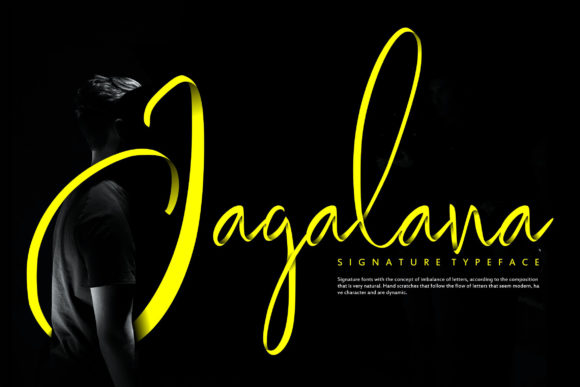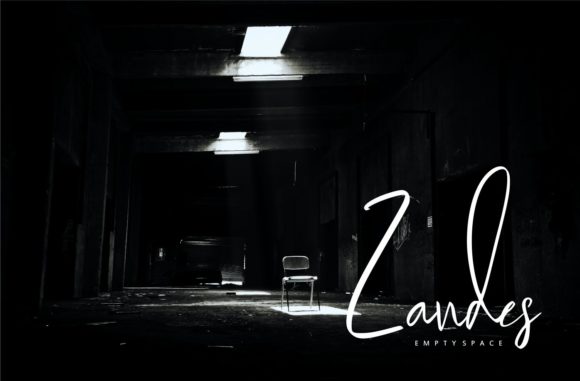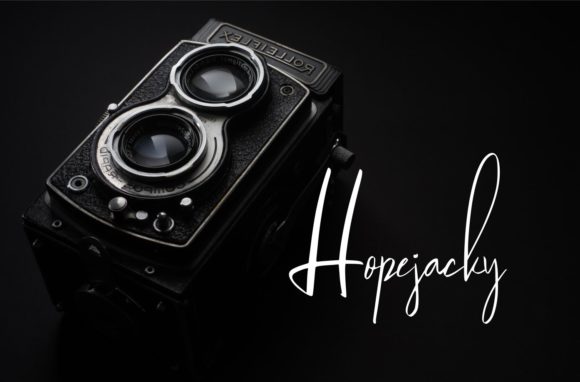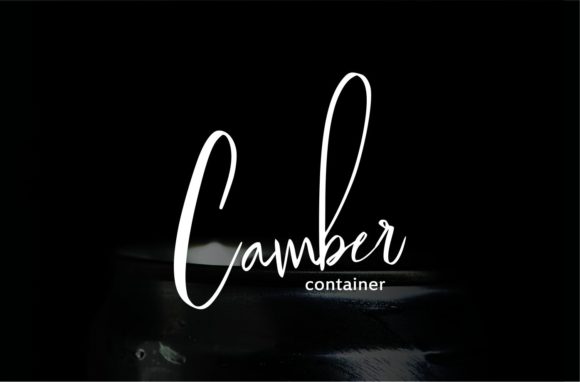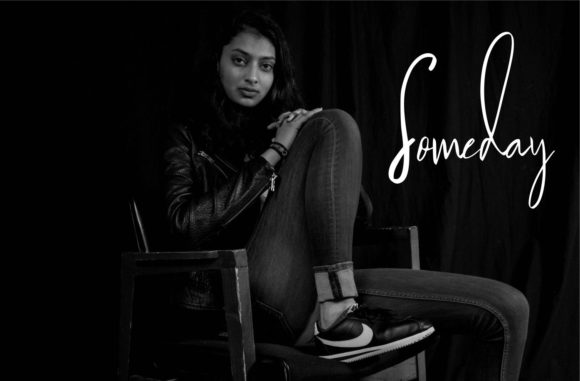
HomeScript FontsJagalana Font Script Fonts Jagalana Font FacebookXPinterestWhatsApp Jagalana Font Poster 2 Jagalana Font Poster 3 Jagalana Font Poster 4 Jagalana Font Poster 5 About Jagalana Font Jagalana is the perfect font to add an authentic and sophisticated spark to your next design project. DOWNLOAD ON CREATIVE FABRICAThis font is sold and delivered by Creative Fabrica. Font Canyon may earn a commission if you buy through this link. People also explored Higher Dreams Font Shelby Script Font Sweet Pineapple Font Somebody Font Yosephine Script Font Qayla Font Scream Ghost Font Finis Text Soft Font Oh Little Star Font 272 0 TagsJagalana Font Previous articleBigbang FontNext articleBalistik Font LEAVE A REPLY Cancel reply Comment: Please enter your comment! Name:* Please enter your name here Email:* You have entered an incorrect email address! Please enter your email address here Website: Save my name, email, and website in this browser for the next time I comment. Personal Use Free Yukarimobile Personal Use Free Read more about this font Eva Personal Use Free Read more about this font Boldist Personal Use Free Read more about this font Girl Personal Use Free Read more about this font BLOG Top 10 Handwritten Fonts That Elevate Your Designs Top 10 Handwritten Fonts That Will Elevate Your Designs Handwritten fonts bring a warm, personal touch to every creative project. Whether you're designing logos, invitations,... Transform Your Website: Elevate Your Typography with 7 Best Web Font Generators 5 Fonts That Will Dominate Design Trends in 2026 Modern Sans-Serif Fonts That Brands Love in 2025